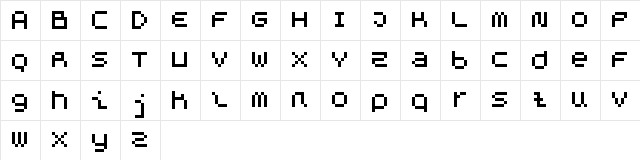
von Arpix Regular
| Designer | Gvon |
Design Context for von Arpix Typeface
von Arpix is a composed and adaptable typeface that performs quietly and consistently across a wide range of design contexts.